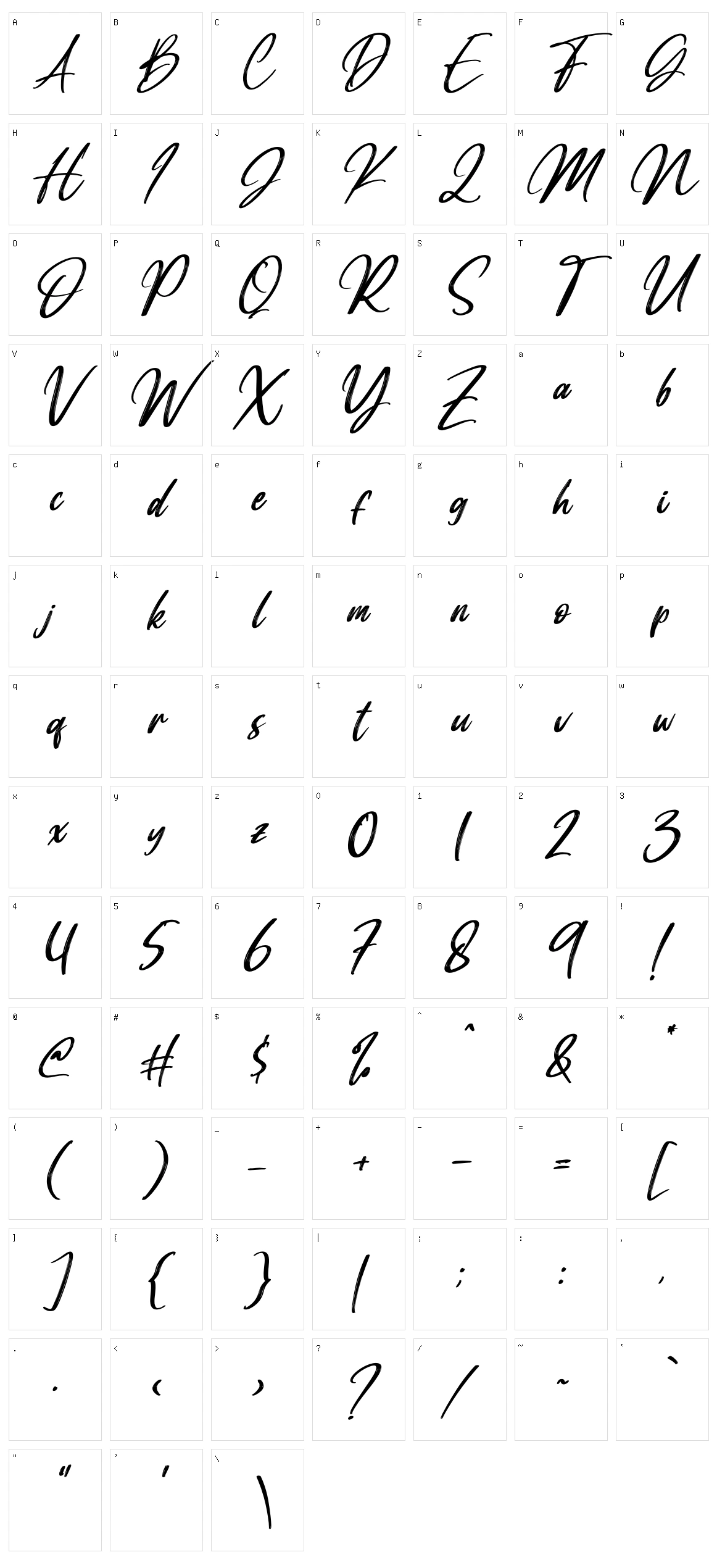
The free font Manttilda is carefully designed by Letterena Studios, showcasing a thoughtful balance of creativity and usability and falls under the Script font style. When you download the ZIP file, it contains only 789.12 KB of font files, making it lightweight and quick to download. Please review the license details below to understand permitted usage and distribution rights. If license information is not available, we recommend using this font for personal projects only or contacting the author directly for commercial usage permissions.